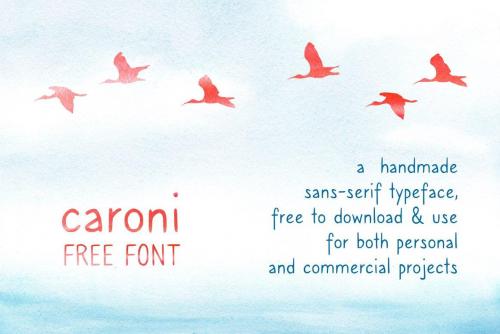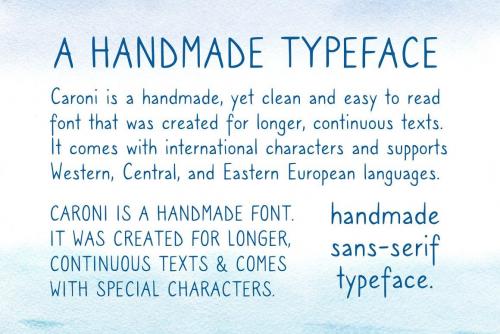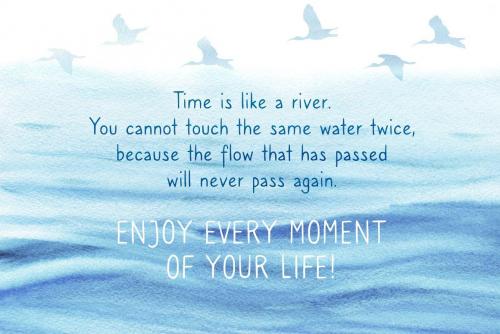
Caroni is a handwritten font that was created for longer texts – it is therefore clean and easy to read, yet it’ll give your projects that special, handmade touch. Of course you can also use it for headlines, business cards, product names etc.
Multilingual support is included for Western, Central and Eastern European languages. Please test your characters in the font previewer above before purchase.
- Designer: Franzi draws